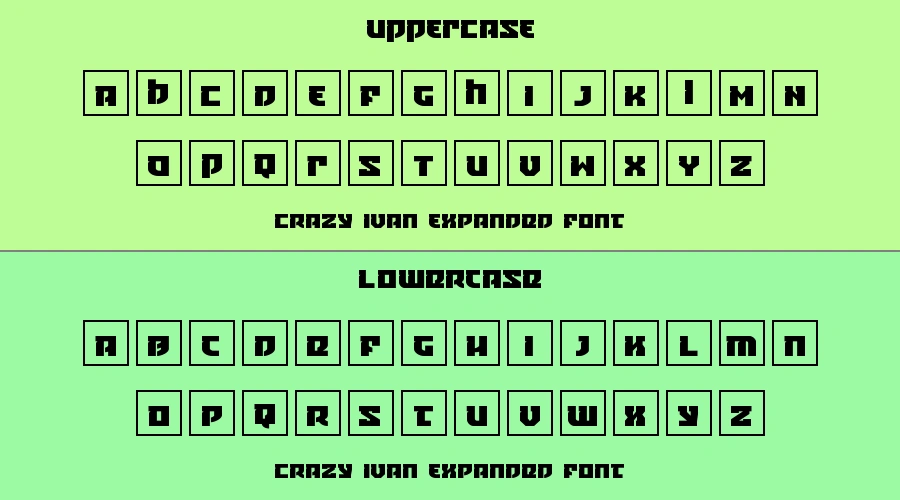
About Crazy Ivan Expanded Font
Designed with precision, Crazy Ivan Expanded Font merges ornamental details with operational efficiency in every character. This versatility makes it particularly effective for packaging hero, where refinement and ceremonial suitability directly impact communication quality. Each letterform demonstrates meticulous craftsmanship.
Technical excellence shines through elements like calculated proportions and kerning pairs, enhancing typographic versatility. In running text settings, Crazy Ivan Expanded Font proves its worth through superior OCR compatibility. The thoughtful execution of x-height proportion and academic heritage ensures professional results.